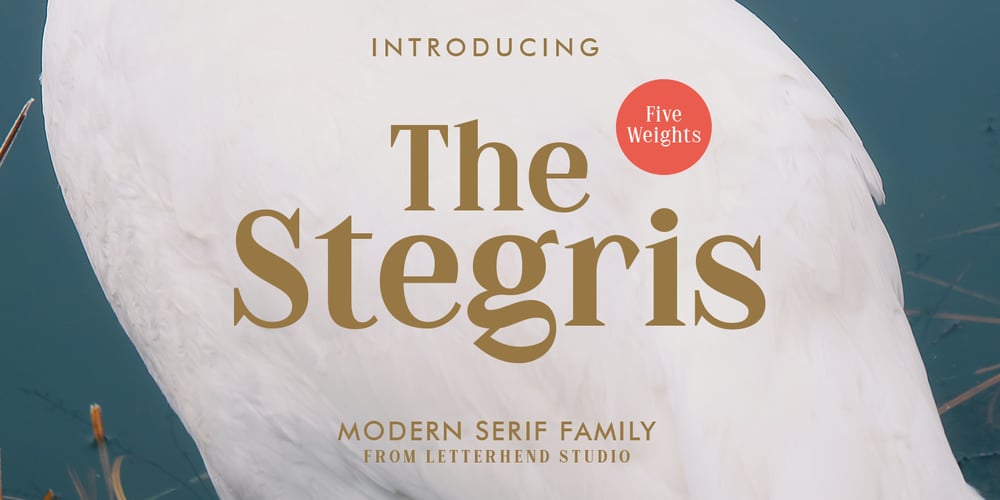
The Stegris Font Family was designed by Hendry Juanda and published by Letterhend. The Stegris contains 5 styles and family package options. Introducing, The Stegris – Modern Serif Family. A pack of serif typeface with 5 weights : Light, Regular, Semi bold, Bold Black ready to choose according to your needs. This typeface also has special feature with its ligatures which make it unique even more.This type of font perfectly made to be applied especially in logo, and the other various formal forms such as invitations, labels, logos, magazines, books, greeting / wedding cards, packaging, fashion, make up, stationery, novels, labels or any type of advertising purpose.Features : uppercase & lowercase numbers and punctuation multilingual ligatures alternates PUA encoded We highly recommend using a program that supports OpenType features and Glyphs panels like many of Adobe apps and Corel Draw, so you can see and access all Glyph variations. How to access opentype feature : letterhend.com/tutorials/using-opentype-feature-in-any-software/Email us to letterhend@gmail.com if you need something! Happy Designing!